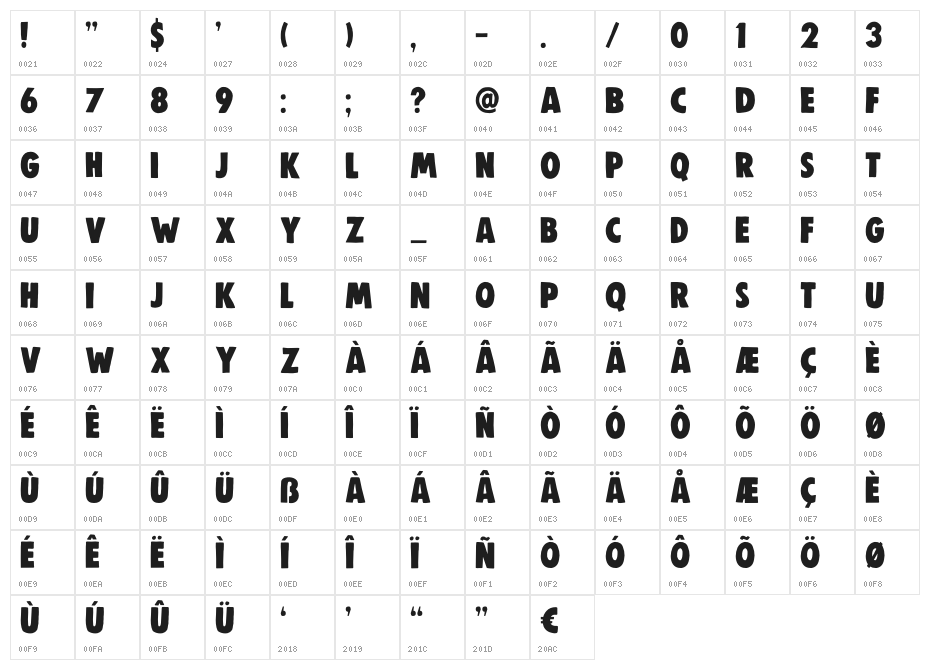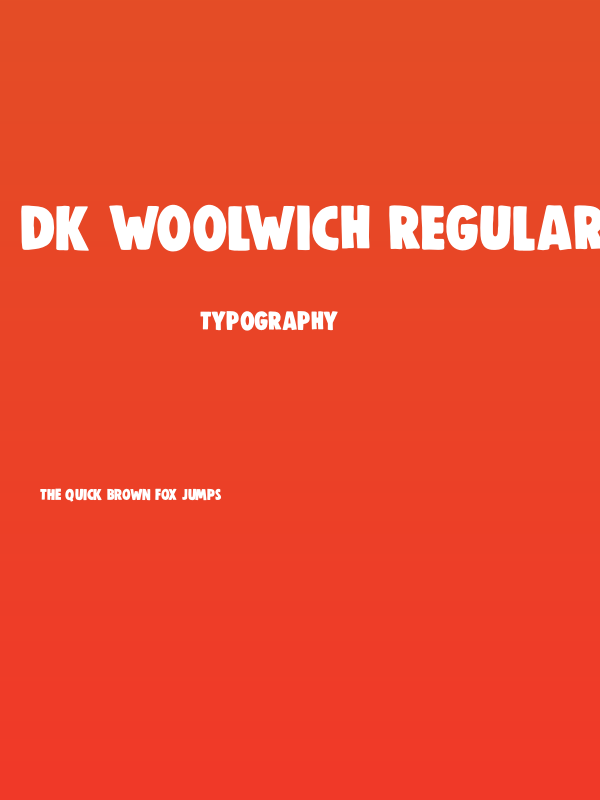
DK Woolwich Regular Font
| Stile generale | Playful, Decorative |
| Progetti proposti | Ideal for children's book covers, playful branding, posters, and creative packaging. |